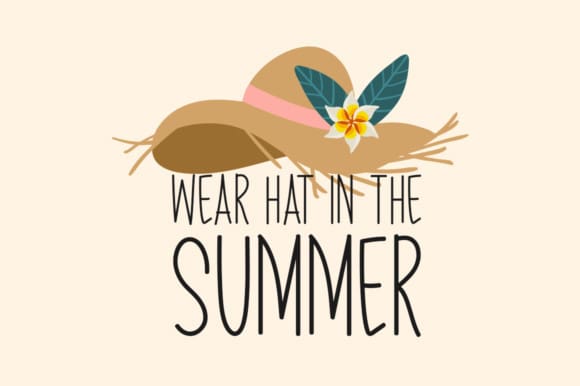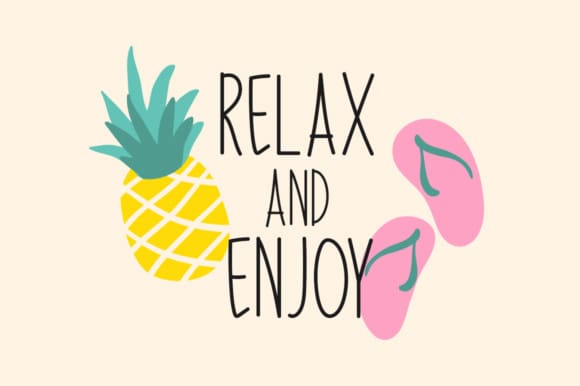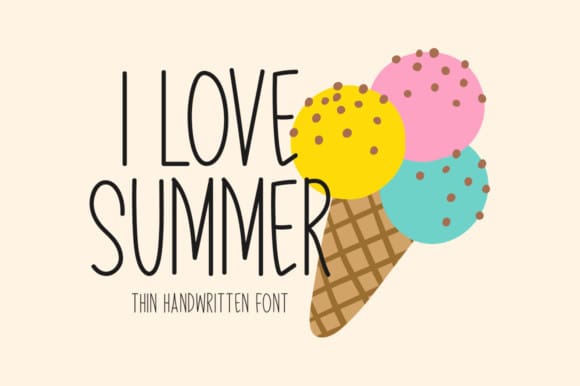
I Love Summer Font
I Love Summer Font is a sweet and friendly handwritten font. Its natural and unique style makes it incredibly fitting for a large pool of designs. The only limit is your imagination!